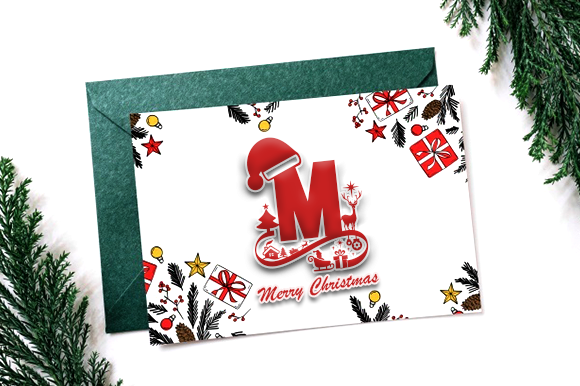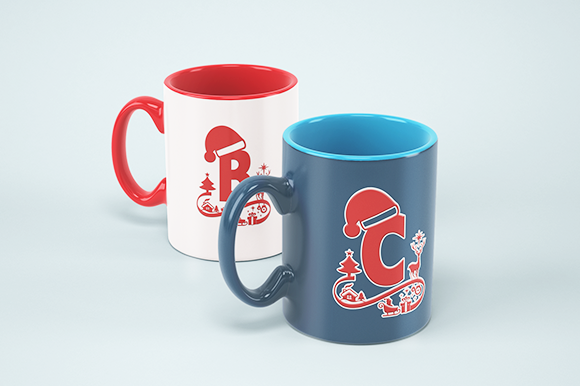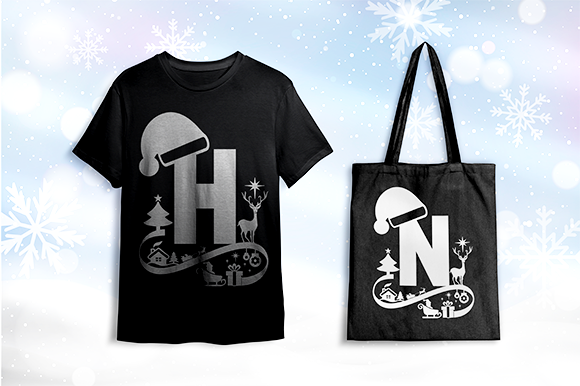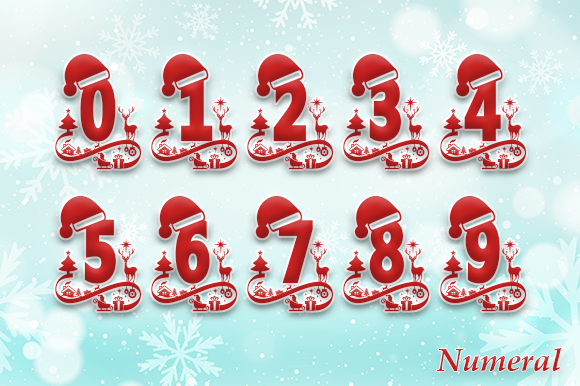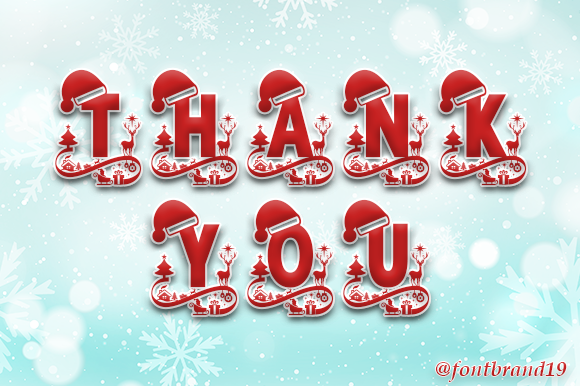
Introduction to Santa Hat Monogram Font
It’s that time of the year again – the holiday season is just around the corner, and designers are scrambling to create the perfect festive designs for their clients. But what sets a design apart from the rest? For many, it’s the little details that make all the difference. And what’s more festive than a font that screams “holiday cheer”? Let’s talk about the Santa Hat Monogram Font – a game-changing design resource that’s sure to elevate your creative project to the next level.
With its incredibly versatile style and high-quality design, the Santa Hat Monogram Font is a must-have for any designer looking to add a touch of magic to their designs. Whether you’re creating digital invites, social media graphics, or even designing a custom transparent background for a client, this font is the perfect addition to your design toolkit. And the best part? It’s free to download, making it an accessible design resource for designers of all levels.
So why is the Santa Hat Monogram Font so valuable for designers? For one, its PUA encoding makes it easy to access all the glyphs and swashes, allowing for endless creative possibilities. Plus, its transparent background feature makes it a breeze to layer over other design elements, giving you complete control over the final look of your design. With the Santa Hat Monogram Font, the possibilities are endless, and we can’t wait to see what you create with it!
Key Features of Santa Hat Monogram Font
- Unique Monogram Design: This font features a distinctive Santa hat design, making it perfect for creative projects that require a festive touch.
- High Quality Design Resource: The Santa Hat Monogram Font is a high-quality design resource that can be used for a variety of applications, including invitations, cards, and gift tags.
- Transparent Background: The font includes a transparent background, allowing users to easily layer it over other design elements or use it on a transparent background.
- Perfect for Holiday Projects: The Santa Hat Monogram Font is specifically designed for holiday-themed projects, including Christmas, New Year’s, and other winter-themed celebrations.
- Editable and Customizable: The font is fully editable and customizable, allowing users to adjust the size, color, and style to fit their specific design needs.
Honest Review: Santa Hat Monogram Font
As a designer, I’m always on the lookout for unique and high-quality design resources. The Santa Hat Monogram Font is one such resource that caught my attention. I decided to give it a try for my latest creative project, and here’s my honest review.
- The font is incredibly versatile and can be used for various festive and celebratory designs.
- The transparent background option allows for seamless integration with other design elements.
- The high quality of the font ensures that it looks great even at large sizes.
- The font may not be suitable for formal or professional designs, given its festive nature.
- The limited customization options may not appeal to designers who prefer more control over their design elements.
Overall, I’m quite impressed with the Santa Hat Monogram Font. It’s a great resource for designers working on creative projects that require a touch of festivity and fun. While it may have some limitations, its high quality and versatility make it a valuable addition to any design library.
The Santa Hat Monogram Font is a free design resource perfect for adding a touch of festive cheer to your creative projects. With its high-quality design and transparent background, it’s ideal for use in various graphic design applications.
To get the most out of the Santa Hat Monogram Font, experiment with different font sizes, colors, and arrangements to create unique and eye-catching designs.